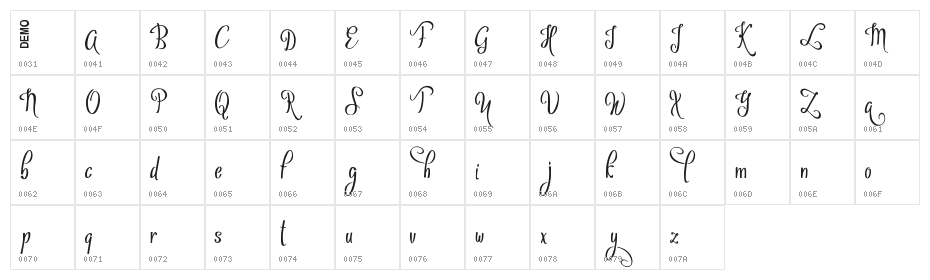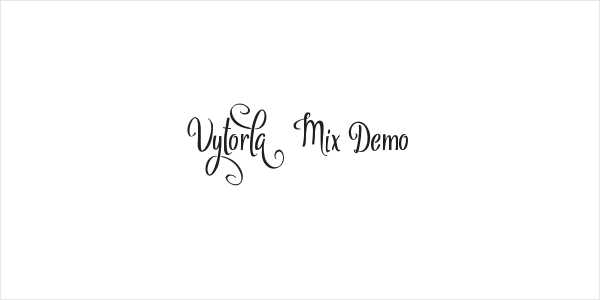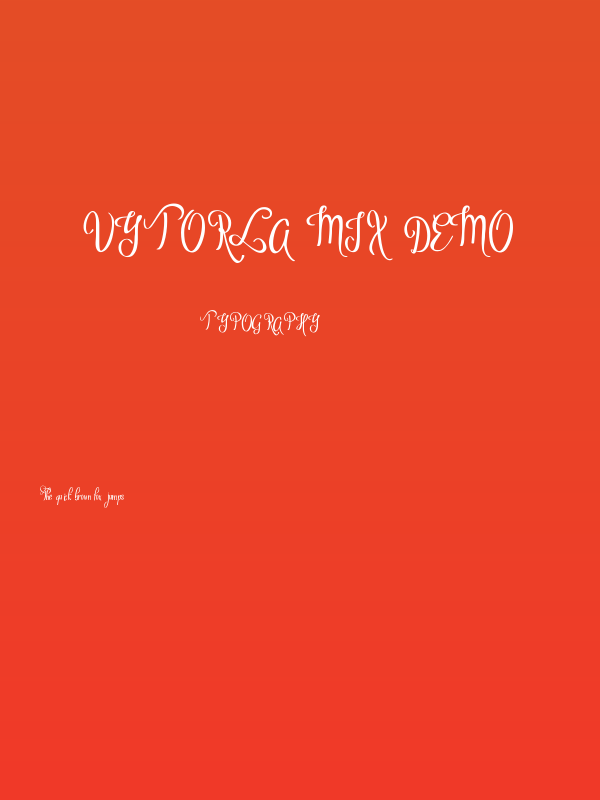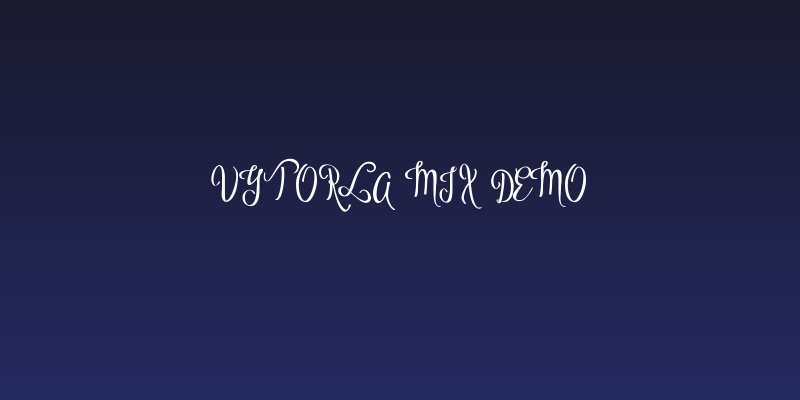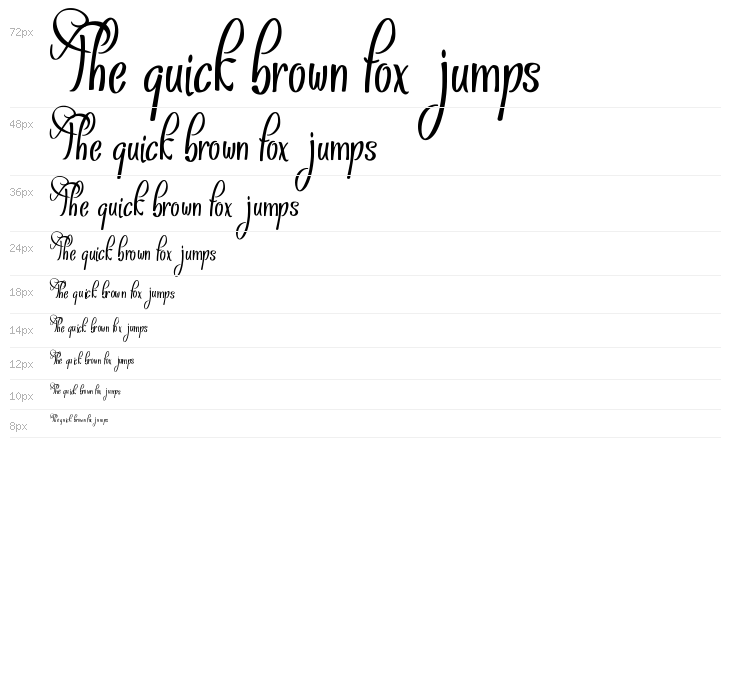
Vytorla Mix Demo Font
Vytorla Mix Demo Description
This font features an elegant and decorative script style with a flowing, cursive design. The uppercase letters are ornate with intricate swirls and loops, giving a sense of sophistication and flair. The lowercase letters maintain a consistent style, with smooth curves and a slightly playful touch. The numbers and special characters are designed to match the overall aesthetic, making them suitable for creative and artistic projects. The font's unique character shapes and embellishments make it stand out, perfect for adding a touch of elegance to any design.
| Proposed Projects | Ideal for wedding invitations, greeting cards, branding, and decorative signage. |